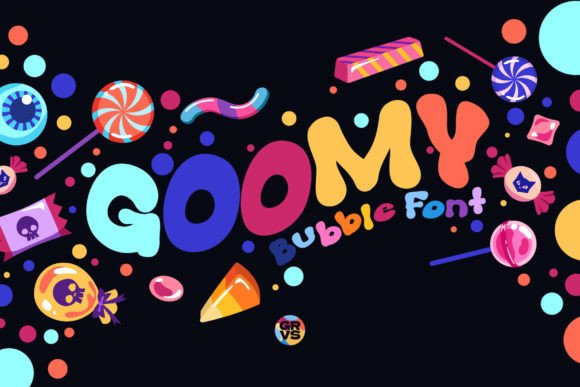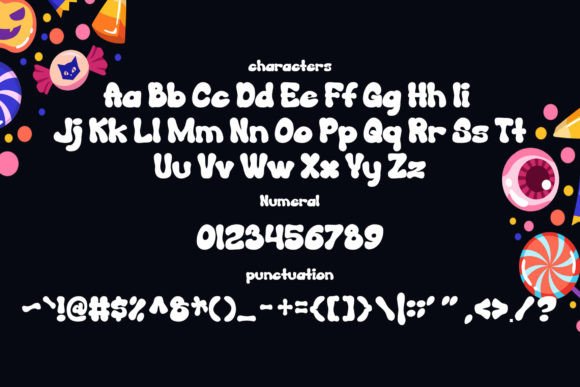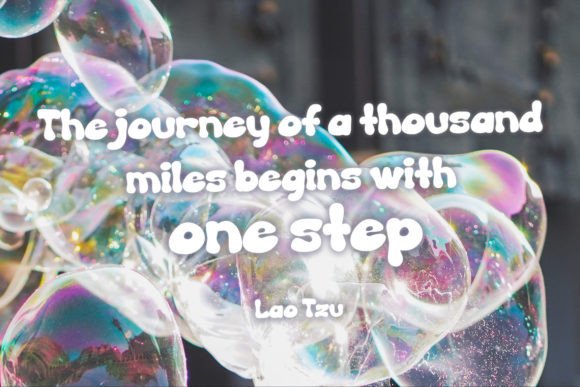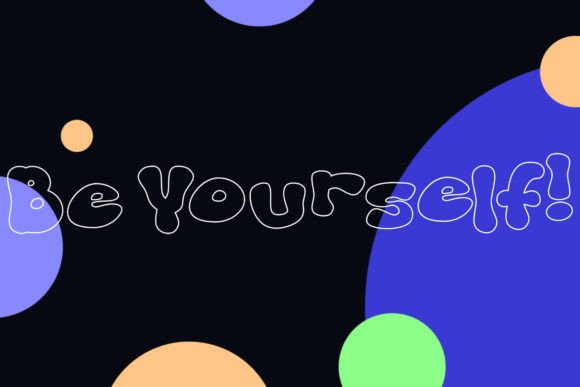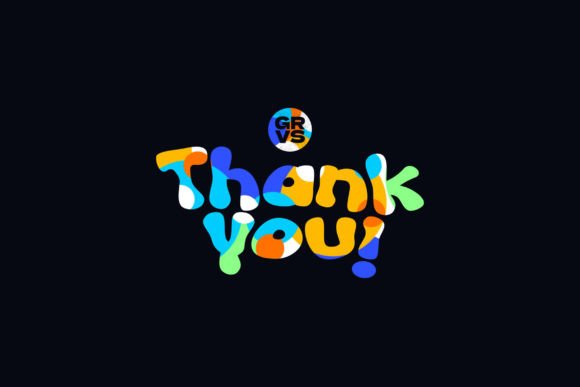
The Joy of Goomy Font: A Designer’s New Best Friend
I’ll never forget the time I was working on a project for a kids’ party invitation card. My client wanted a font that was fun, playful, and would appeal to both kids and adults. I scoured the internet, tried out dozens of fonts, but nothing seemed quite right. That was until I stumbled upon the GRVS Goomy Funny Bubble Font. It was love at first sight! 🎉
With its bubbly, cheerful vibe, Goomy Font instantly captured the essence of what my client was looking for. I knew right then and there that I had to share this amazing font with fellow designers, crafters, and creative hobbyists.
An Honest Review of Goomy Font
What I Love About Goomy Font
- ✨ Fun and playful design: Goomy Font is perfect for projects that require a lighthearted and humorous touch.
- ✅ Highly versatile: This font can be used for a wide range of projects, from logos and stickers to invitation cards and brochures.
- 🎉 Kids and joy theme: The font’s bubbly design makes it an excellent choice for projects targeting children or promoting happiness.
While Goomy Font is an excellent addition to any design project, there are a few things to keep in mind:
- 🤔 Limited use in formal contexts: Due to its playful nature, Goomy Font might not be the best choice for formal or professional projects.
- ⚠️ May not work well at small sizes: The font’s bubbly design can become distorted or hard to read when scaled down to very small sizes.
The Backstory of Goomy Font
GRVS Goomy Funny Bubble Font was designed with one goal in mind: to bring joy and playfulness to design projects. The font’s creator wanted to craft a typeface that would instantly evoke a sense of happiness and fun. And, with its bubbly, cheerful design, Goomy Font achieves just that.
Q: What type of projects is Goomy Font best suited for?
A: Goomy Font is perfect for projects that require a fun, playful, and lighthearted touch, such as kids’ party invitations, stickers, and community logos.
Q: Is Goomy Font available in different styles or variations?
A: Yes, Goomy Font comes with various OpenType features, glyphs, and stylistic alternates that allow you to experiment with different styles and variations.